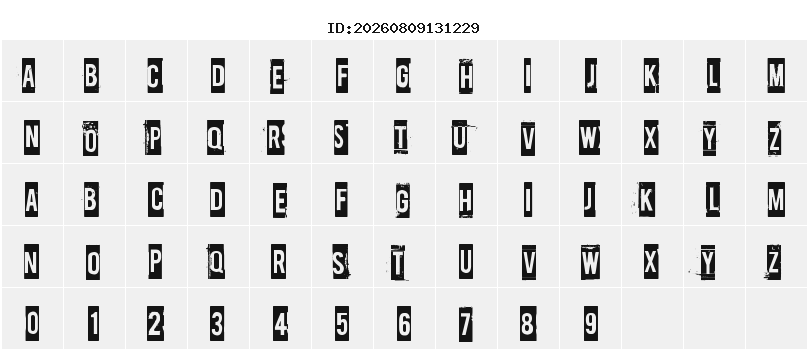
Payday Preview
• Font Name: Payday
• Designer: junkohanhero
About Payday.ttf
Payday.ttf is a modern, elegant sans-serif font designed for ultimate readability and visual harmony. Perfect for branding, headlines, web design, and print materials.